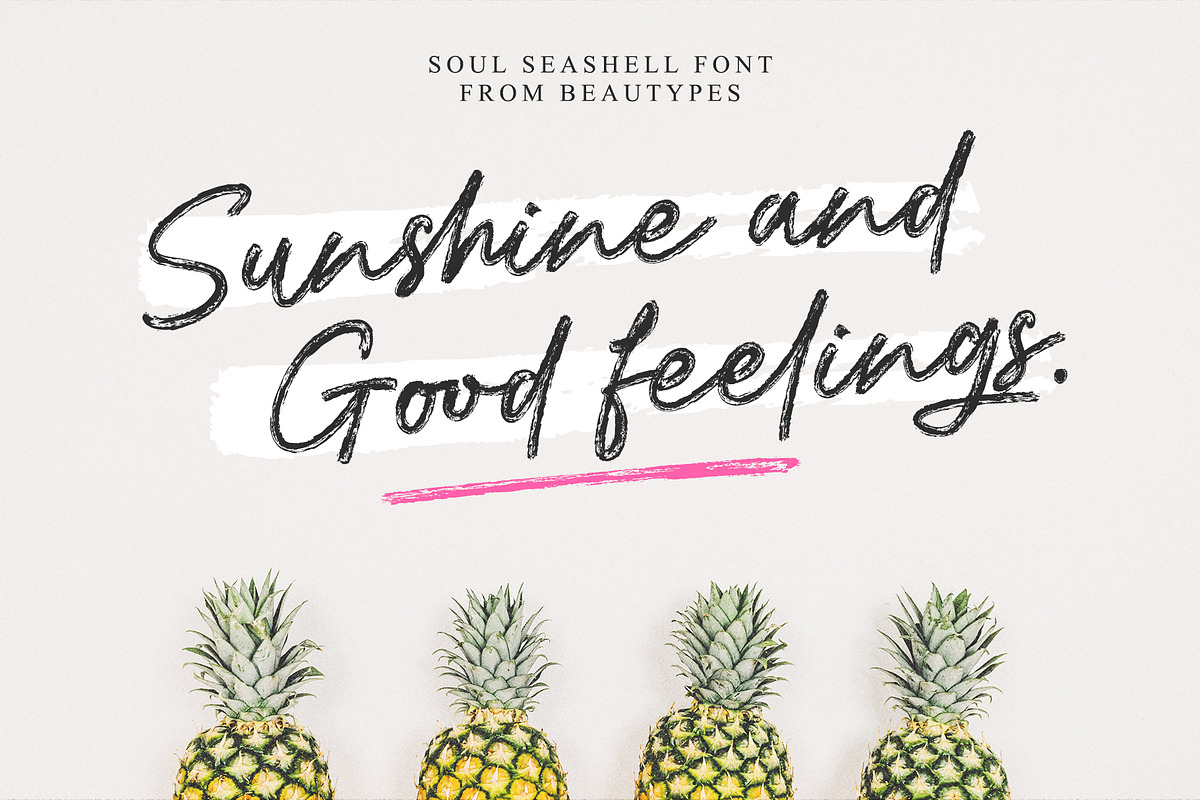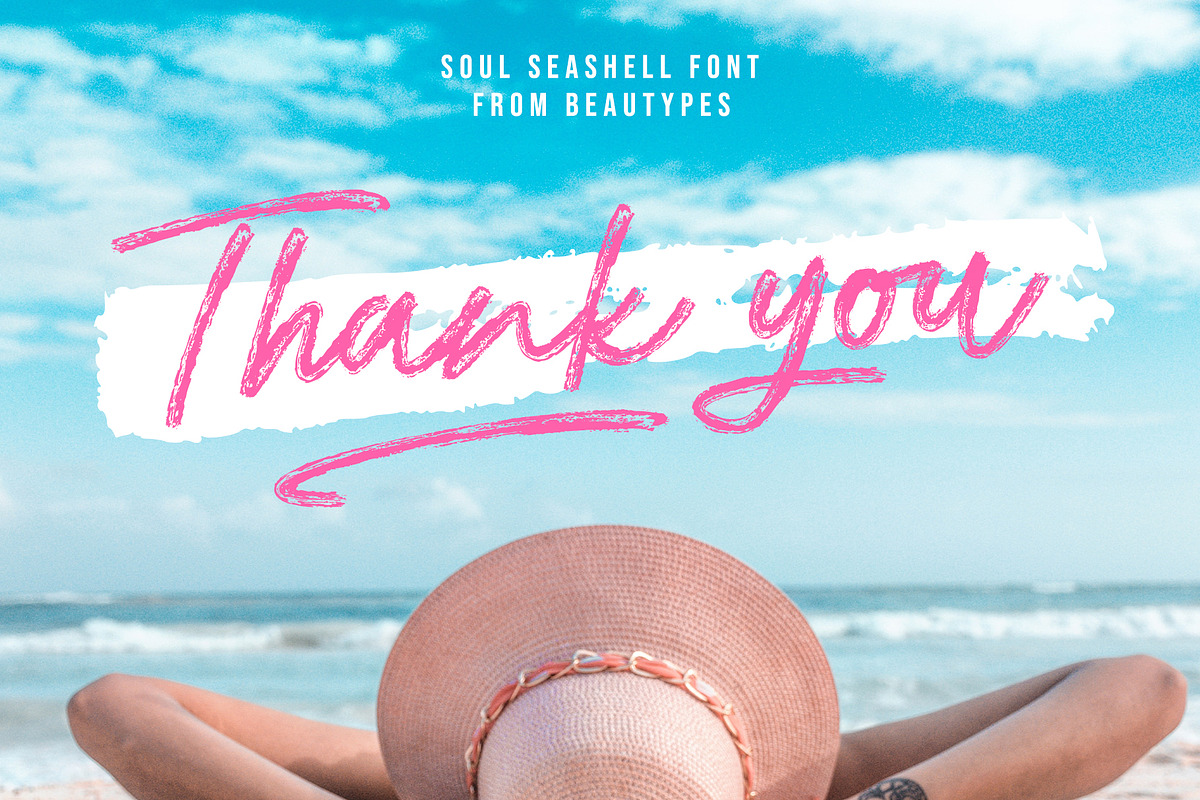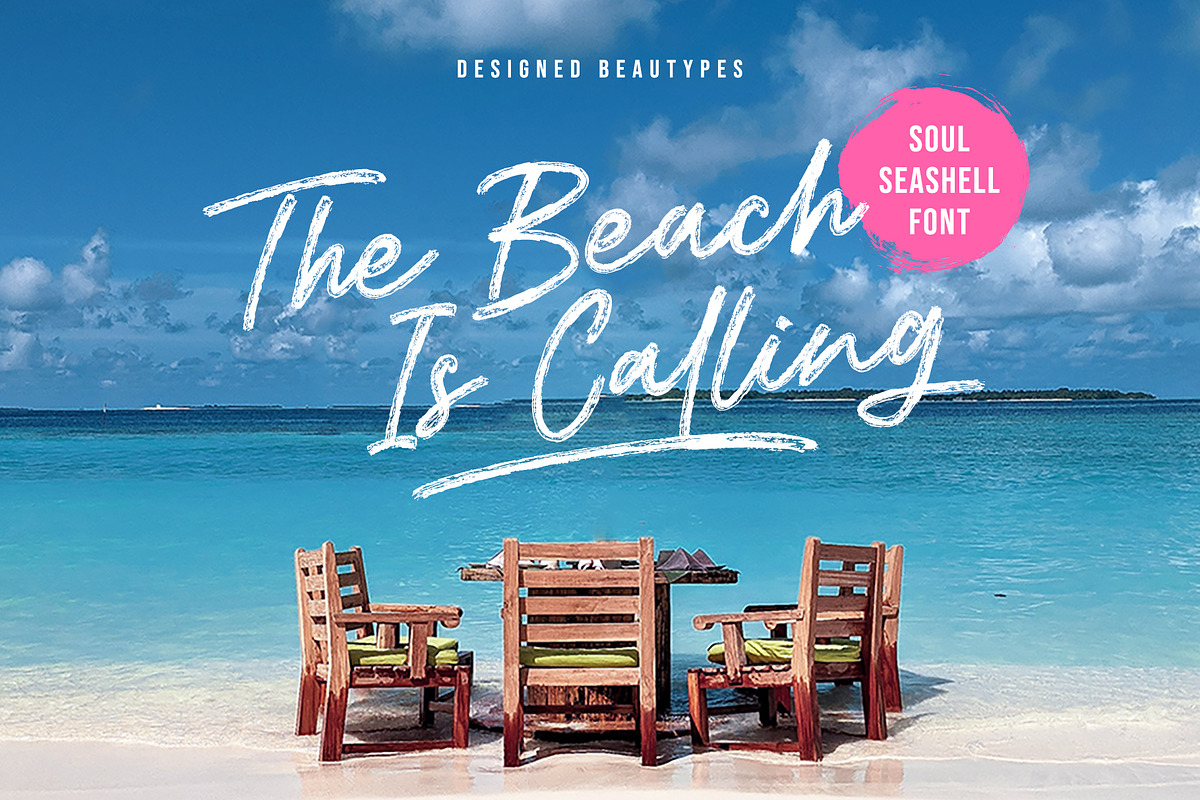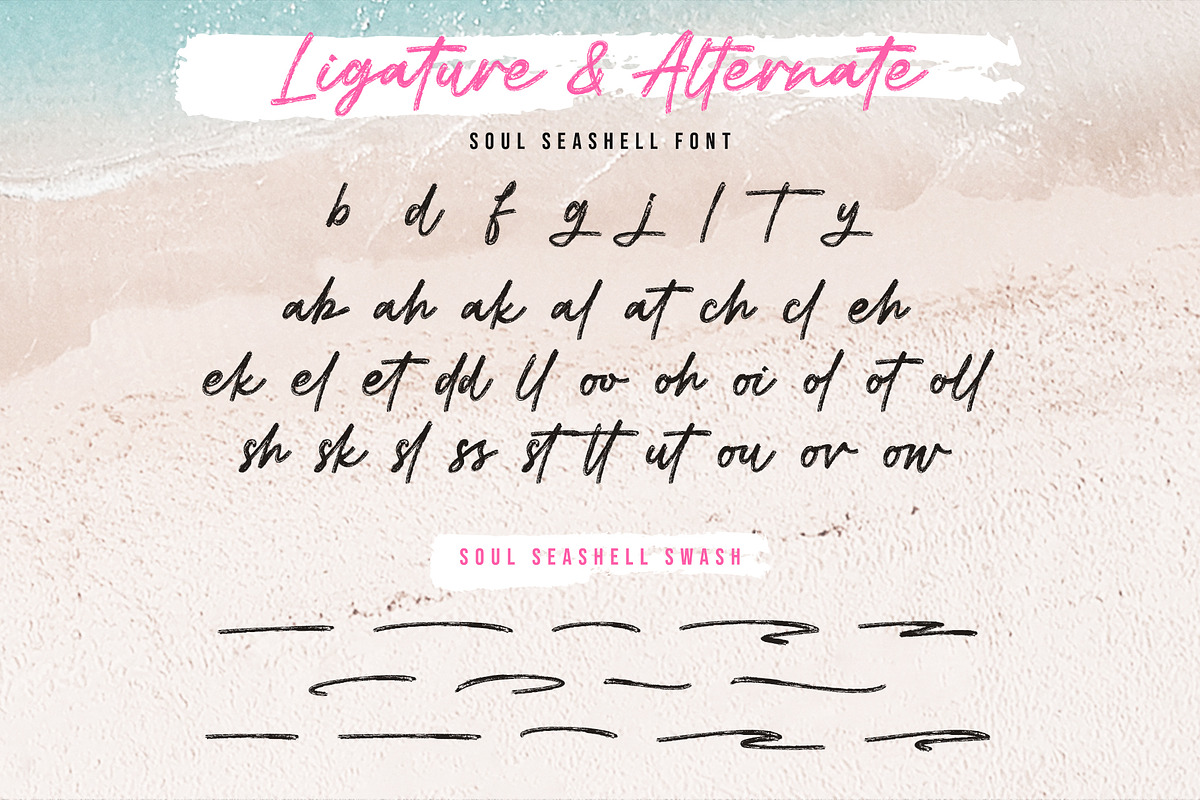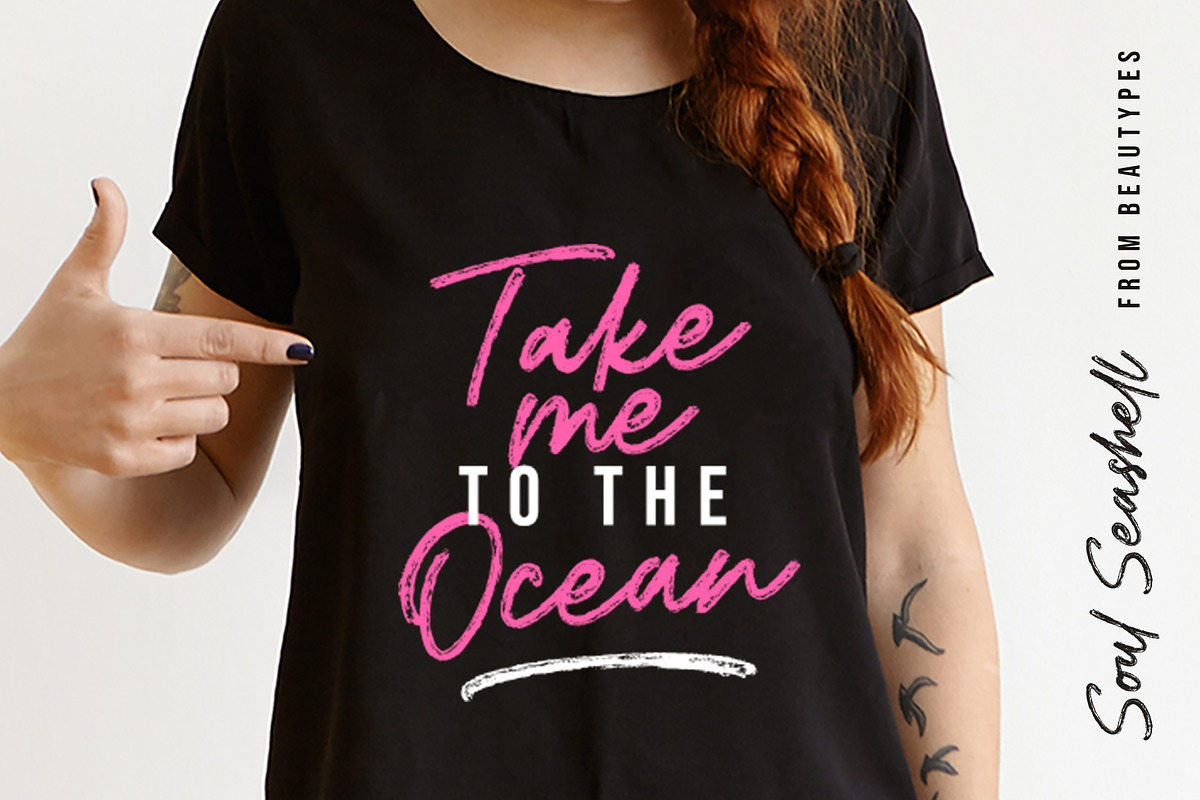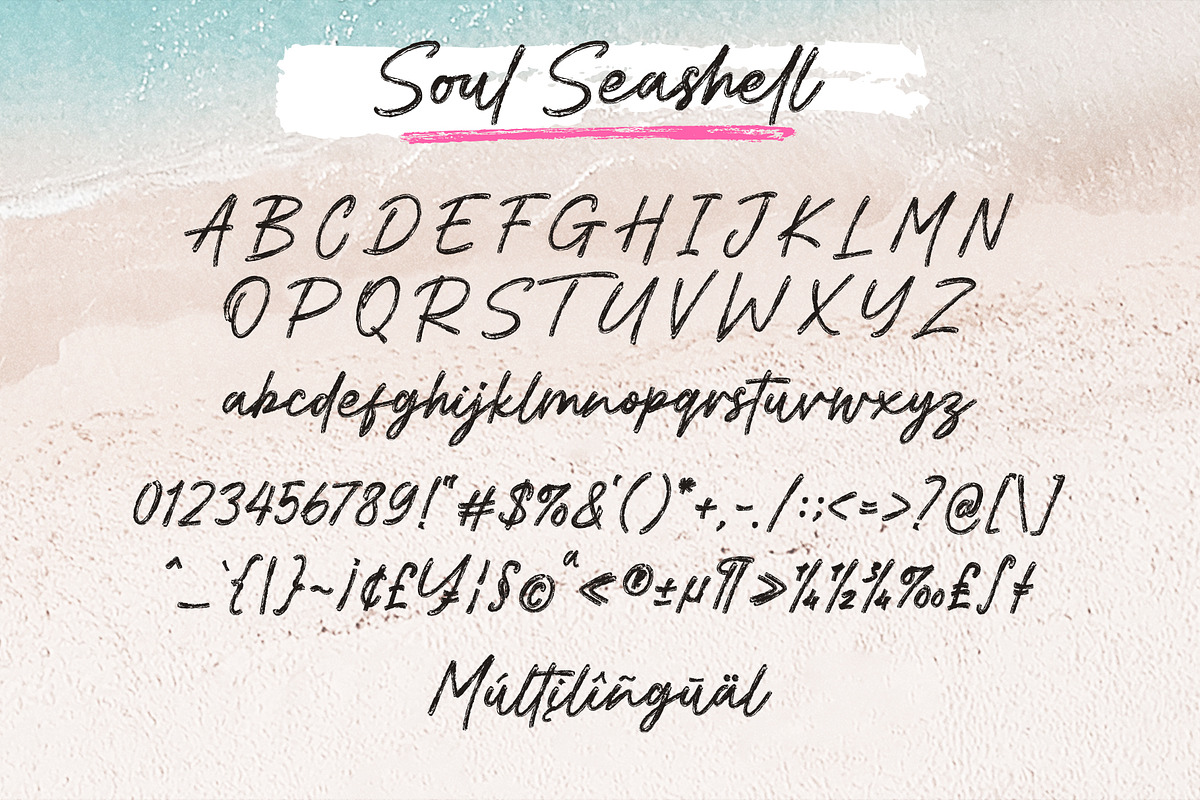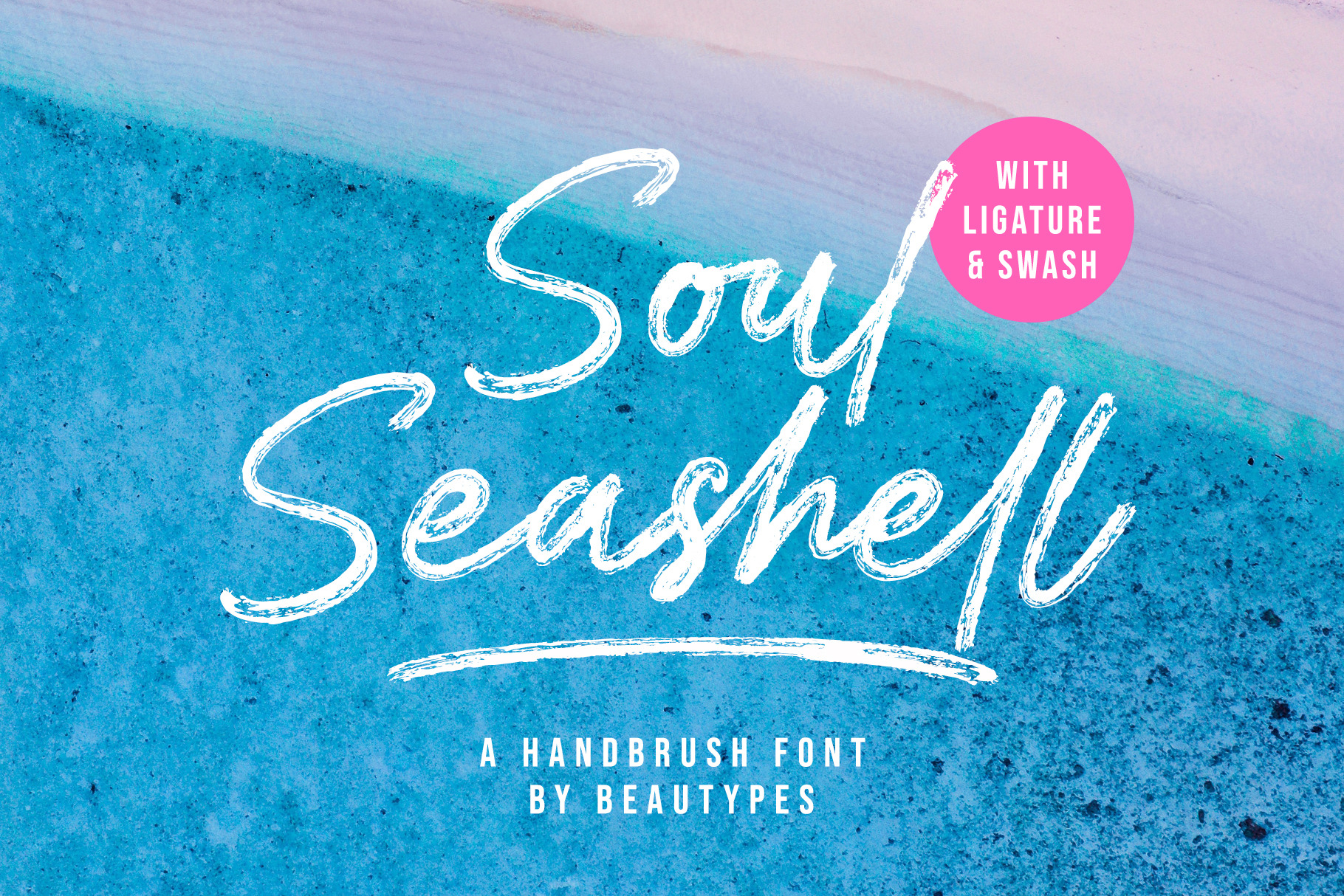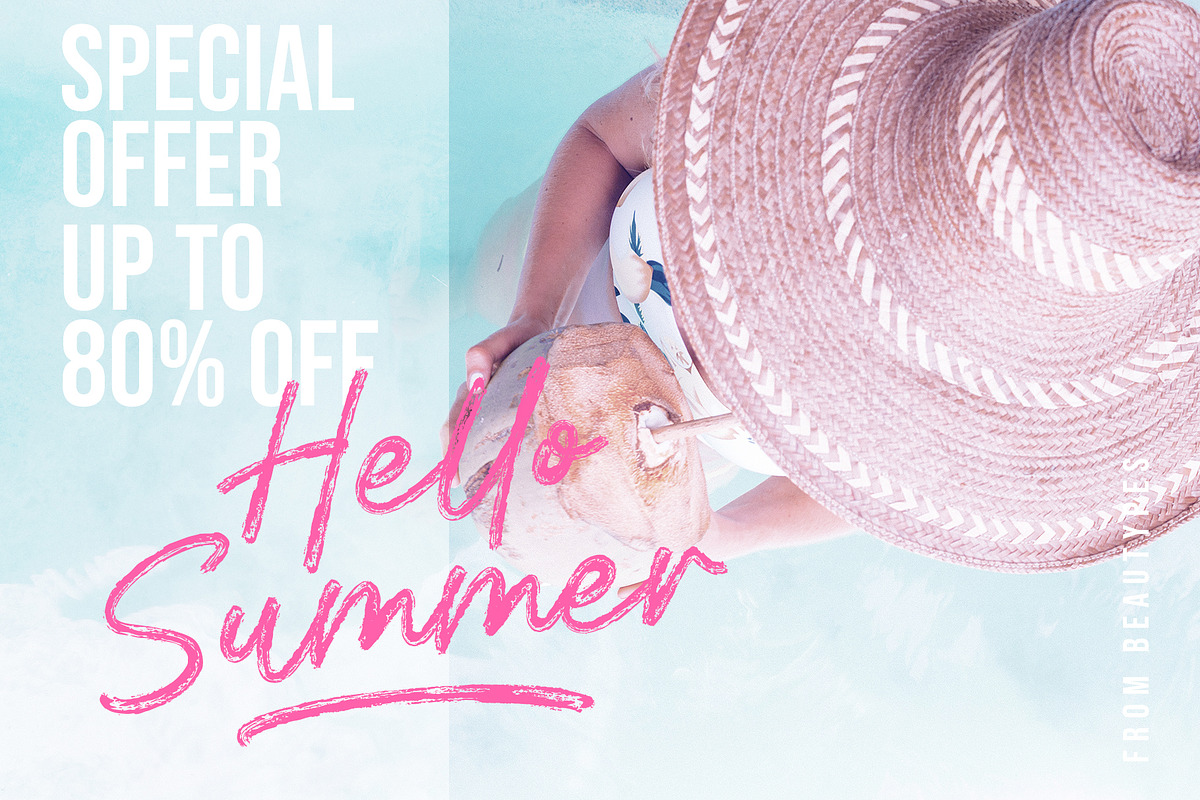
Soul Seashell - Brush Font
Soul Seashell is a handwritten brush script font with a Strong charm with quick dry strokes and a signature style. Friendly and organic, Soul Seashell is perfect for branding projects, summer designs, product packaging - or simply as a stylish text overlay to any background image.
Upperrcase, lowercase, Number, Punctuation, Symbol, Alternate, Ligature & Multilingual Support